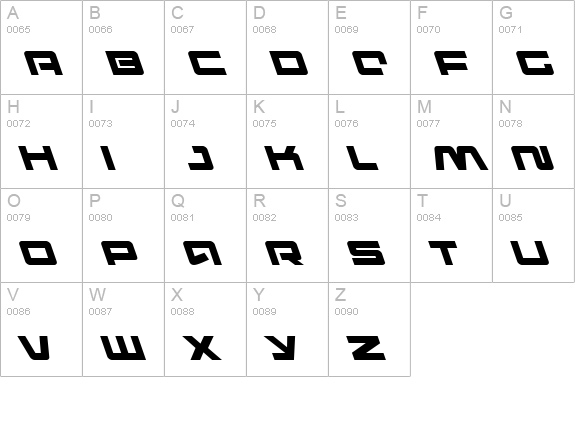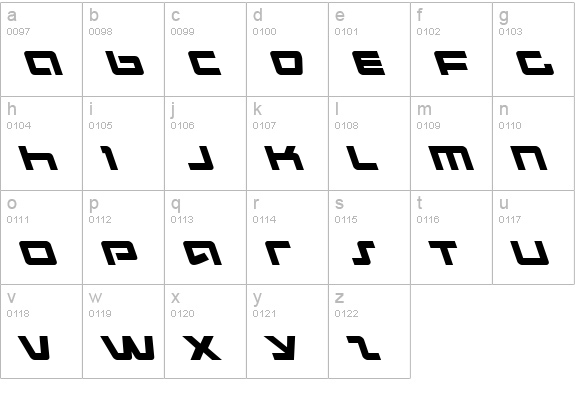
Introducing Pulse Rifle Leftalic font, a dynamic and futuristic typeface that exudes energy and innovation. With its sleek design and bold, slanted style, this font is perfect for creating engaging and eye-catching designs. The Pulse Rifle Leftalic font is versatile and can be used for a variety of projects, from branding to advertising to digital content. Best of all, this font is available for free download at FontsMarket.com. Whether you're a graphic designer, a content creator, or just someone looking to add a modern touch to your projects, Pulse Rifle Leftalic font is a fantastic choice. Don't miss out on the opportunity to elevate your designs with this striking and contemporary font. Download it today and let your creativity soar!